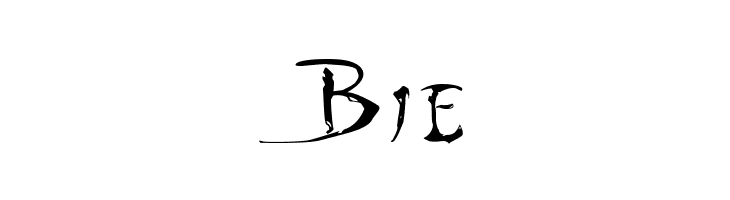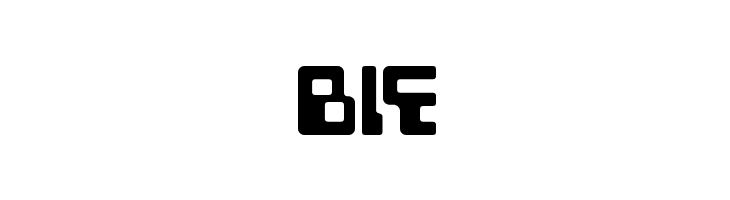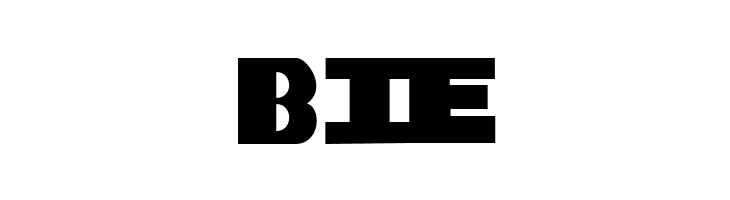
A bold, high-contrast font with a modern and slightly retro feel.
A bold, geometric font with a futuristic and cohesive design.
A bold, playful font with a hand-drawn, informal style.
A dynamic italic font with smooth, flowing curves and a modern, expressive style.
A playful, hand-drawn font with a whimsical and informal style.
A bold and italicized font with dynamic, sharply angled characters.
A decorative and gothic-inspired font with ornate swirls and curls.
A spooky, jagged font with a haunted, eerie appearance.